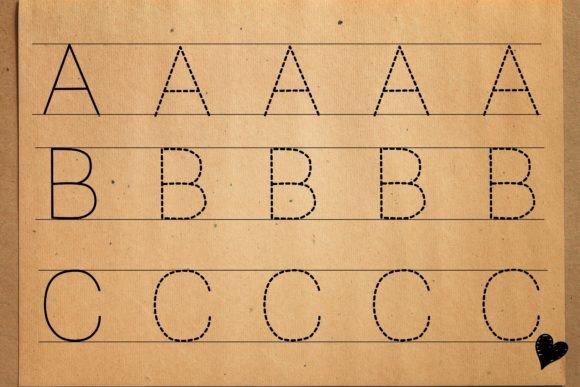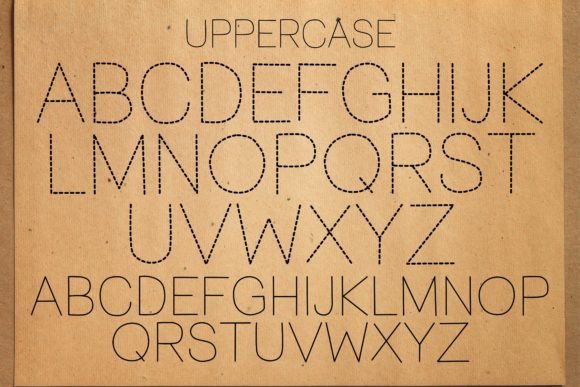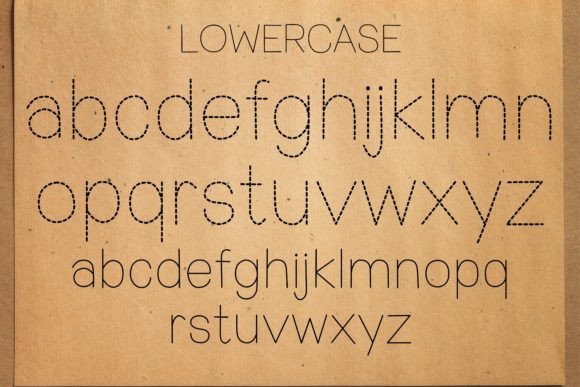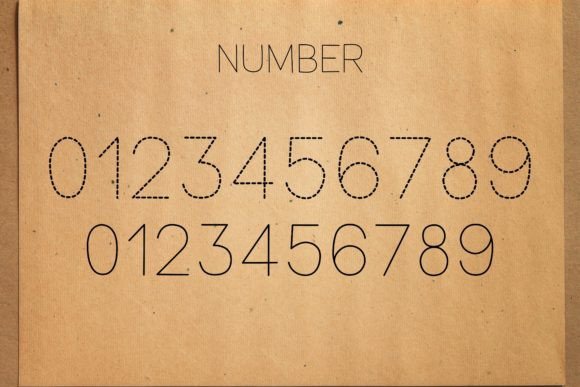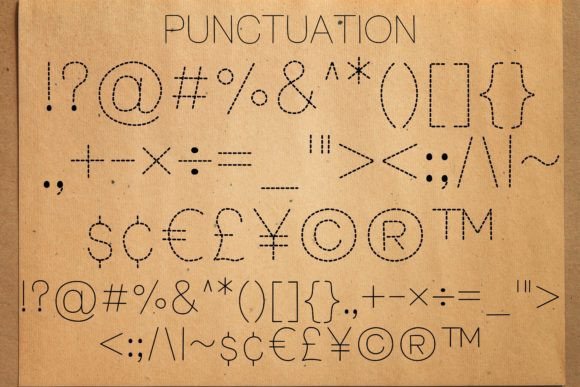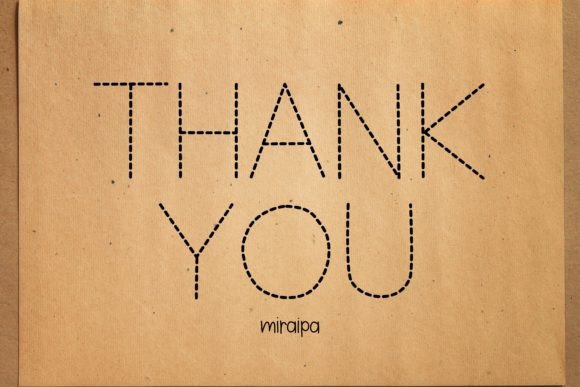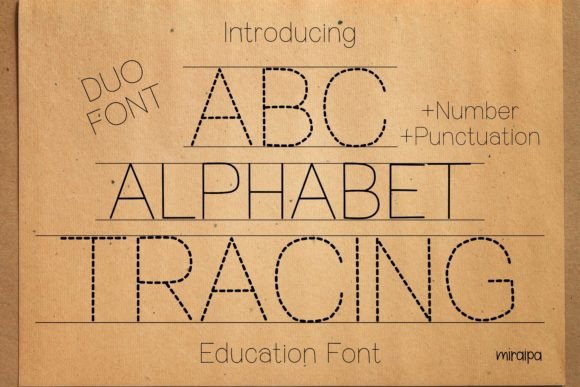
Introducing the ABC Alphabet Tracing Font: A Friendly and Versatile Font for Creative Projects
Are you looking for a font that can help you create engaging and interactive alphabet tracing sheets for kids? Or perhaps you need a friendly and approachable font for your diary planner, journal, or social media posts? Look no further than the ABC Alphabet Tracing Font, a sans serif font designed specifically for making alphabet tracing sheets and other creative projects.
Perfect for Kids and Learners
The ABC Alphabet Tracing Font is ideal for kids and learners of all ages who want to practice writing and improve their handwriting skills. The font’s clear and simple design makes it easy to read and replicate, making it perfect for alphabet tracing sheets, handwriting worksheets, and other educational materials.
With this font, you can create customized alphabet tracing sheets that cater to individual learning needs. Whether you’re a teacher, parent, or homeschooler, the ABC Alphabet Tracing Font is a valuable resource that can help make learning fun and engaging.
Versatile and Multi-Purpose
The ABC Alphabet Tracing Font is not just limited to educational materials. Its friendly and approachable design makes it suitable for a wide range of creative projects, including:
- Diary planners and journals: Add a personal touch to your daily planner or journal with this charming font.
- Back-to-school materials: Create eye-catching invitations, worksheets, and activity sheets for kids.
- Social media posts: Use the ABC Alphabet Tracing Font to add a playful touch to your social media posts and stories.
- Invitations and party decorations: Create customized invitations and decorations for kids’ parties and events.
Key Features of the ABC Alphabet Tracing Font
The ABC Alphabet Tracing Font comes with several key features that make it an excellent choice for designers and crafters:
- San serif design: The font’s clean and simple design makes it easy to read and replicate.
- Clear and consistent letterforms: Each letterform is carefully designed to be consistent and easy to recognize.
- Perfect for tracing and handwriting practice: The font’s design is optimized for tracing and handwriting practice.
Why Choose the ABC Alphabet Tracing Font?
By choosing the ABC Alphabet Tracing Font, you’ll gain access to a versatile and user-friendly font that can elevate your creative projects. Here are just a few reasons why you should consider adding this font to your library:
- Customizable: Use the font to create customized alphabet tracing sheets, worksheets, and other materials.
- Time-saving: The font’s clear and consistent design saves you time and effort when creating materials.
Get Creative with the ABC Alphabet Tracing Font
Whether you’re a designer, crafter, or educator, the ABC Alphabet Tracing Font is an excellent addition to your font library. With its friendly and approachable design, you can create a wide range of materials that are both fun and engaging.
In conclusion, the ABC Alphabet Tracing Font is a versatile and user-friendly font that’s perfect for creating alphabet tracing sheets, educational materials, and a wide range of creative projects. Its friendly and approachable design makes it suitable for kids and learners of all ages, while its clear and consistent letterforms make it easy to read and replicate.